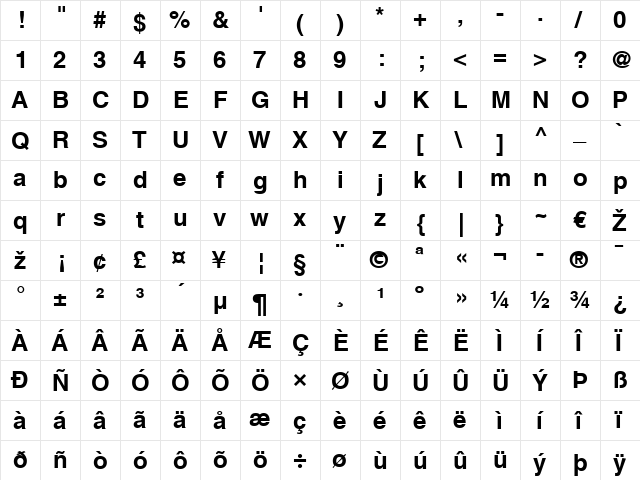
Helvetica LT Bold
Design Context for Helvetica LT Typeface
Helvetica LT offers clean, dependable letterforms without strong stylistic allegiance, making it a practical choice for designers who need flexibility. Its bold stroke weight gives it real presence on the page.
Pro Tip: Pair Helvetica LT with a font of contrasting weight or personality to build a more expressive typographic hierarchy.